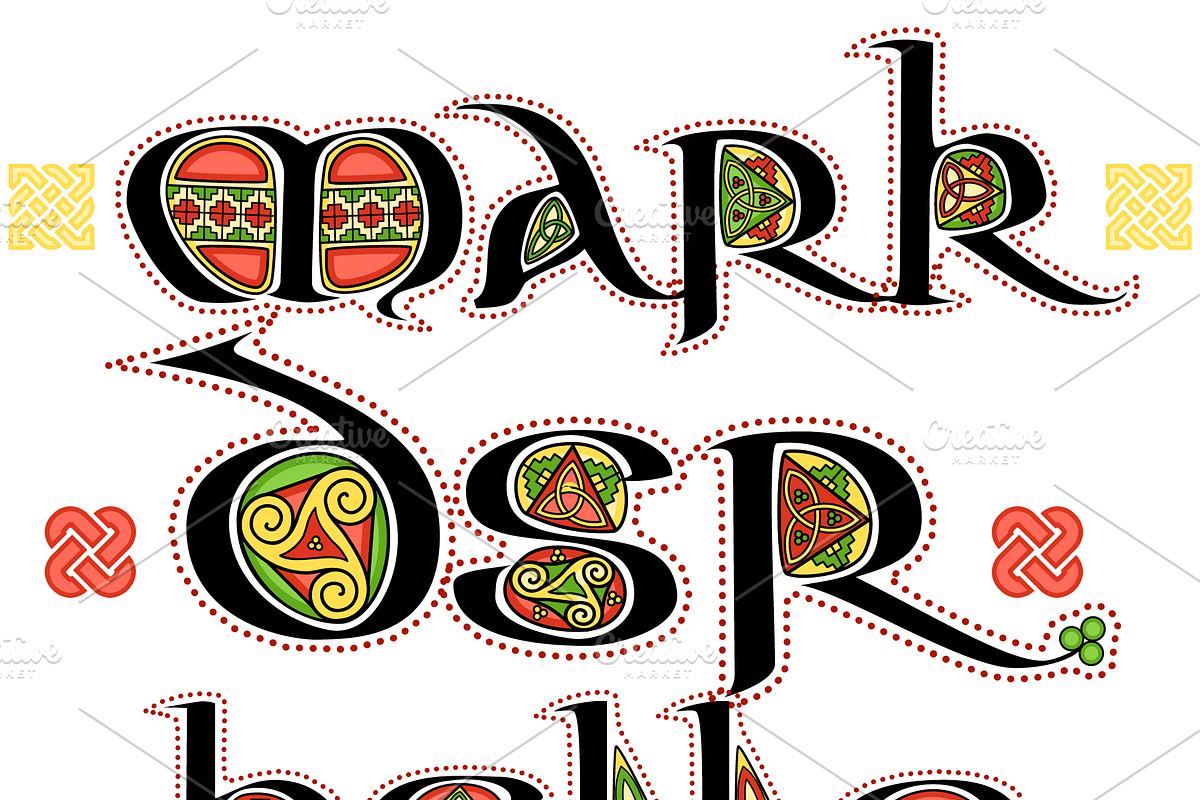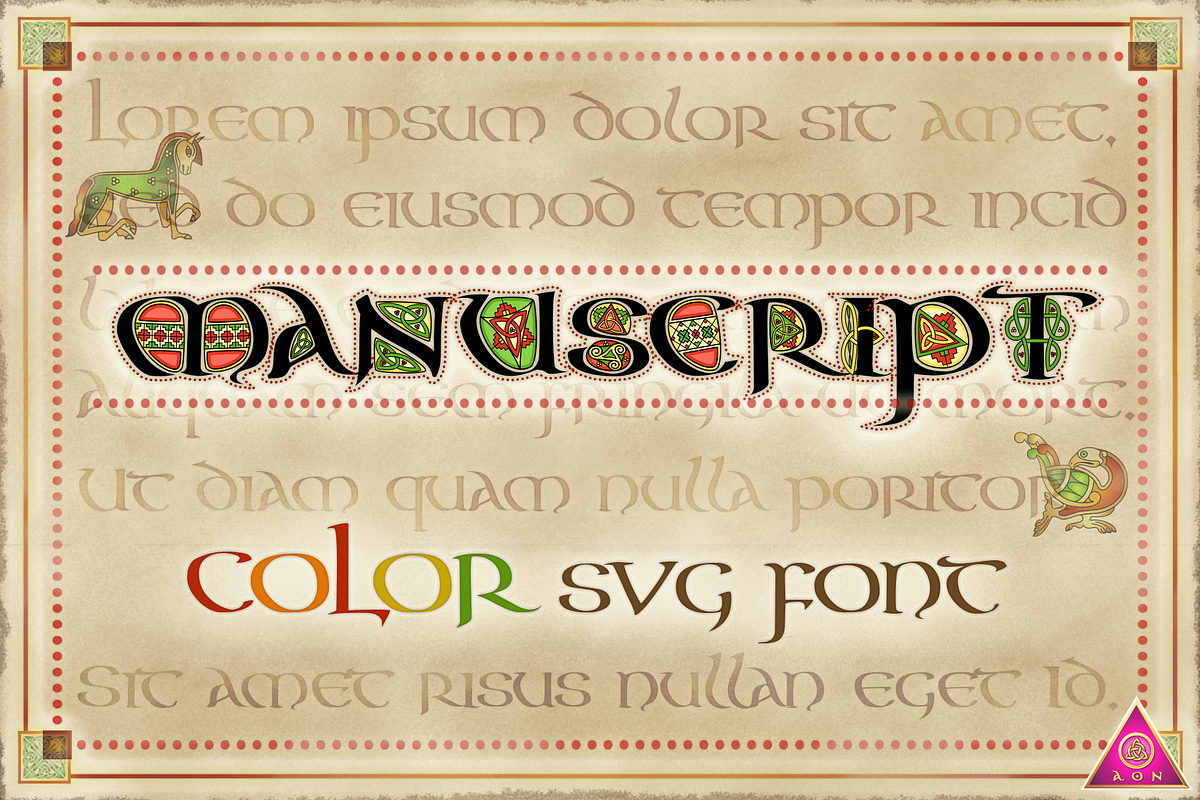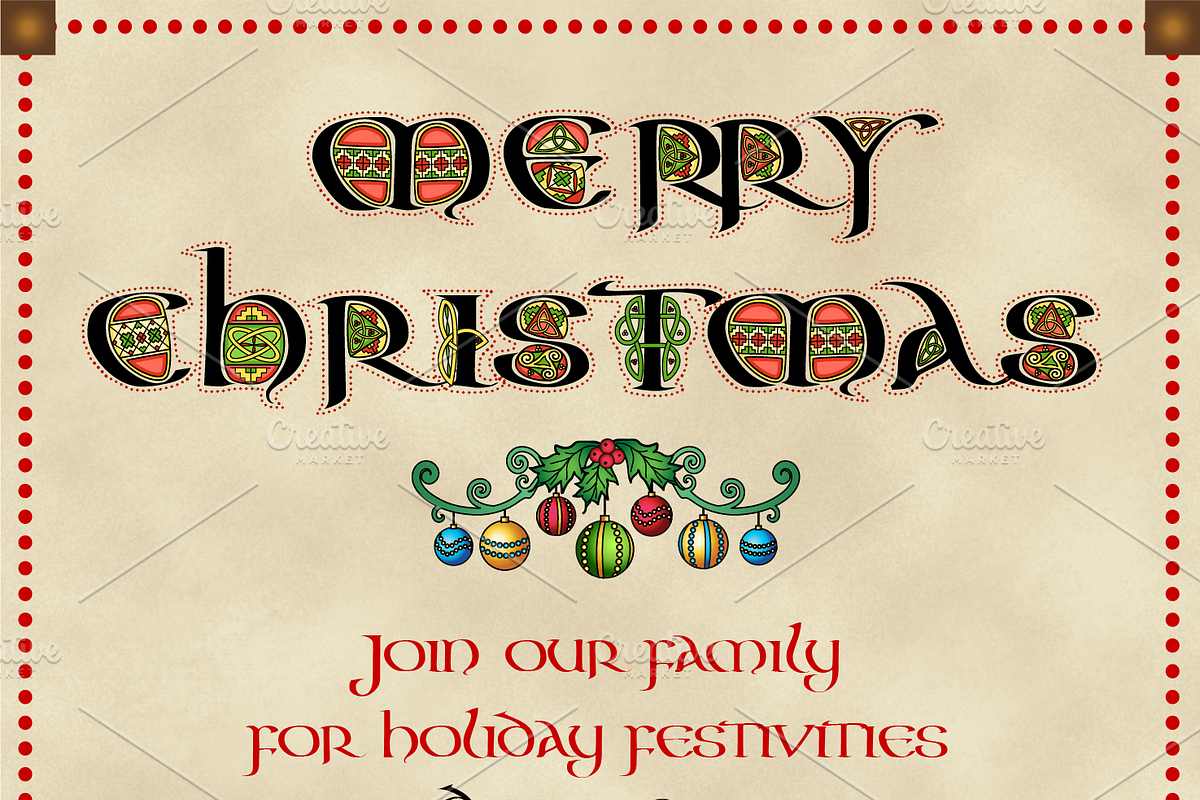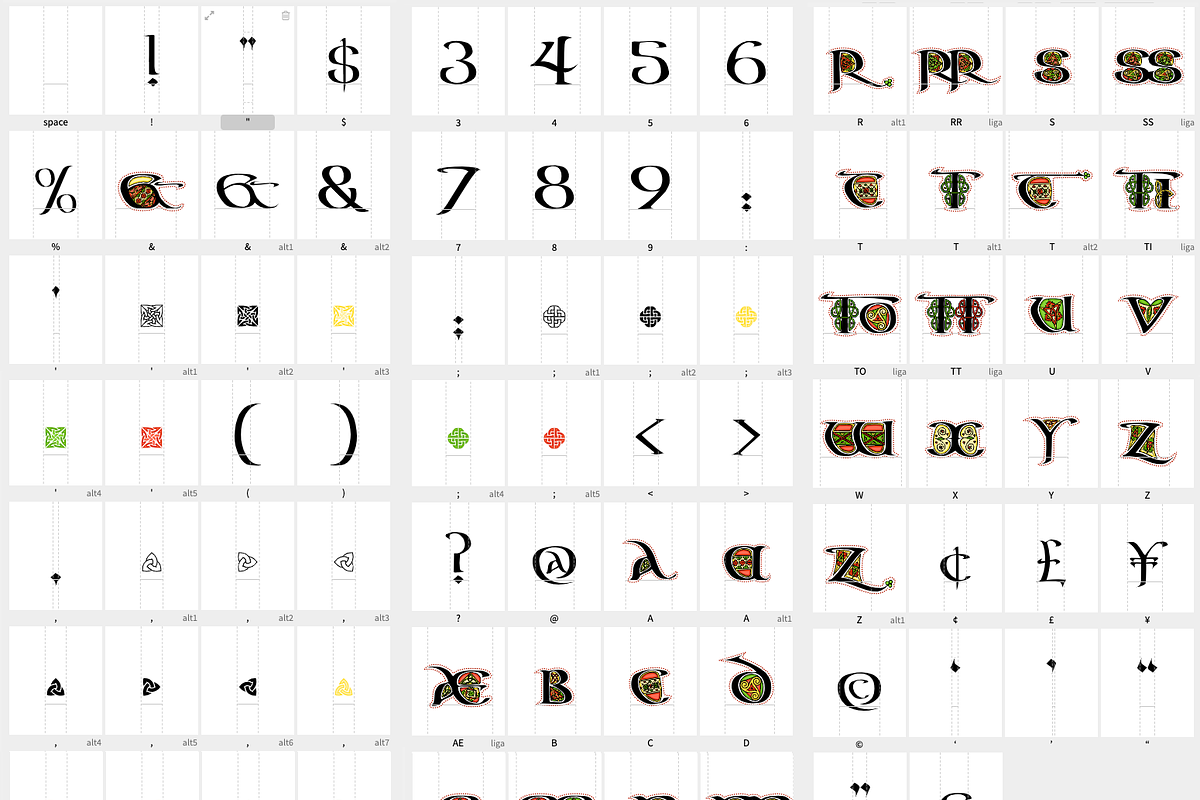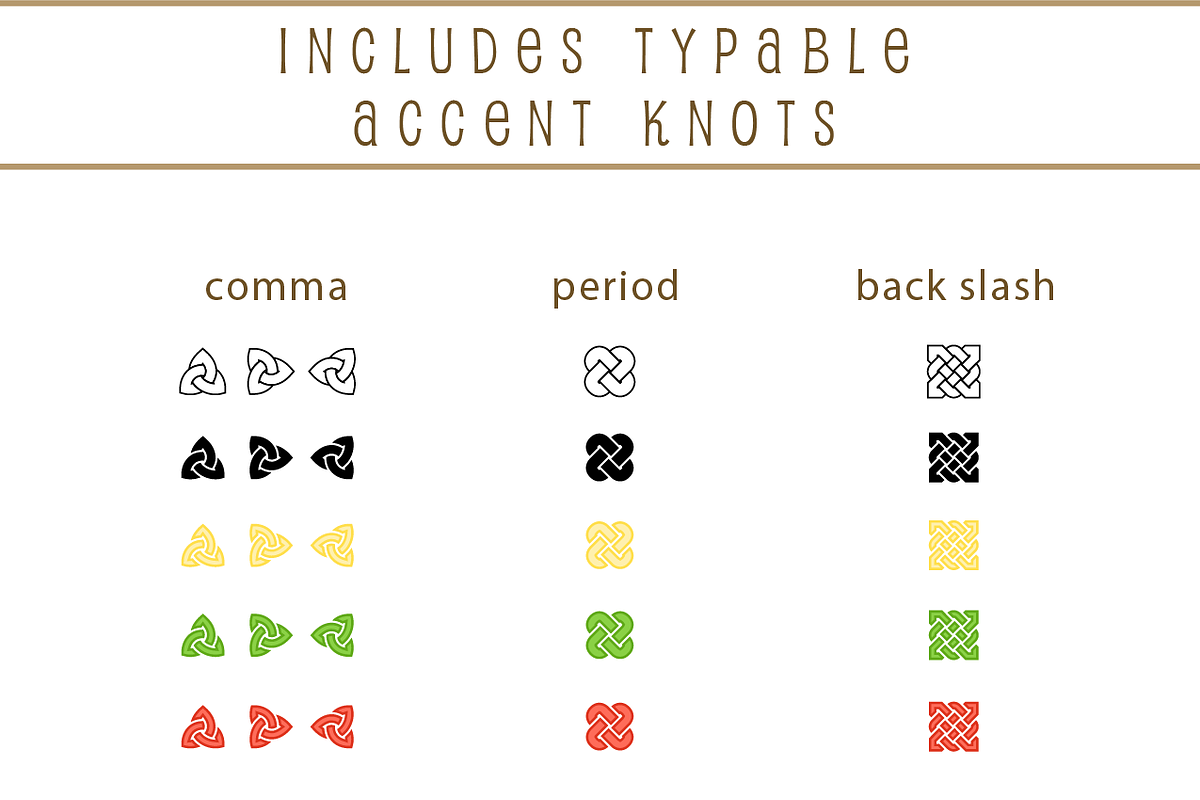
CELTIC Color FONT - Aon Manuscript
☘️ A beautiful typable font using antique colored decorated letters based on Celtic manuscripts like the Book of Kells or Lindisfarne Gospels! Includes alternate and/or extended letters for A, K, R, T, N and Z, as well as custom ligatures, numbers and common punctuation. I've also included some little Celtic knot dingbats for you to use in your projects - just type to add! Due to the PIA it can be to change colors in Opentype SVG fonts, I hope this variation will give you an easier option than trying to recolor the antique browns colored version.
Each letter is decorated with knotwork, spirals, maze and step patterns in a matching Celtic styled collection. This collection can be used alone or as decorated capital letters with normal uncial calligraphy or Celtic fonts. If you need a matching font without all the decorations, you can get that here: https://creativemarket.com/caribuziak/7027580-CELTIC-FONT-Aon-Celtic